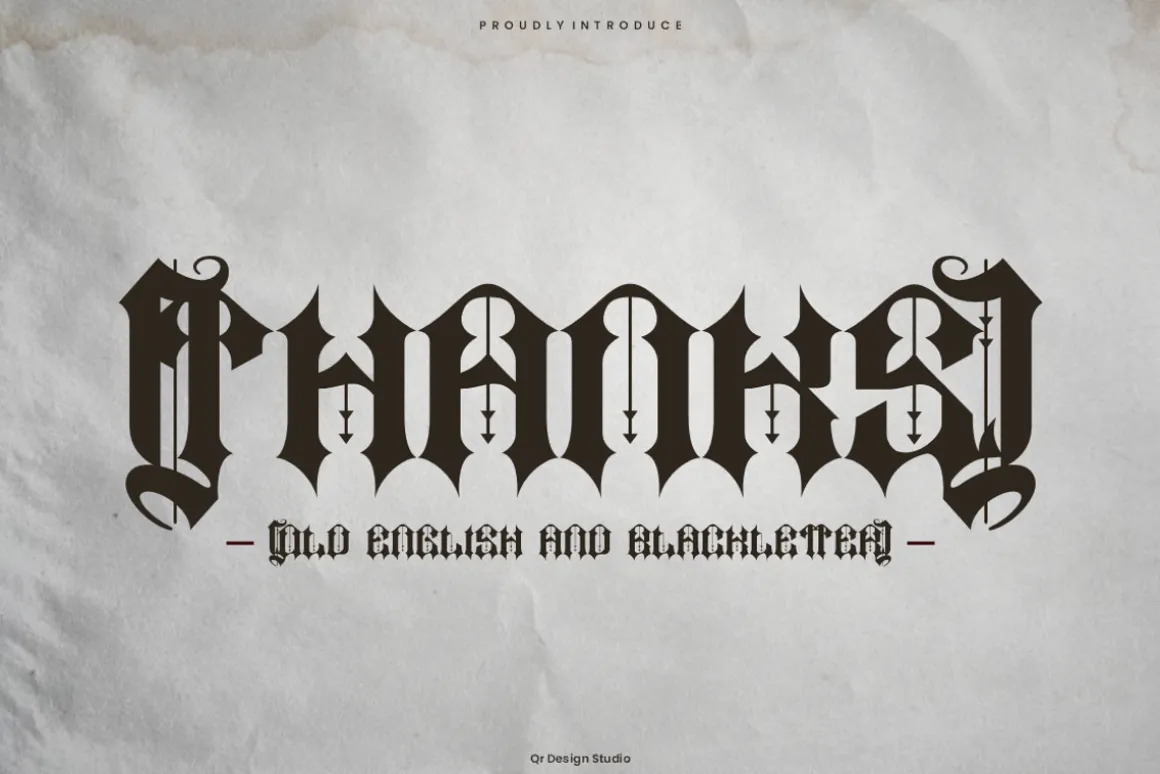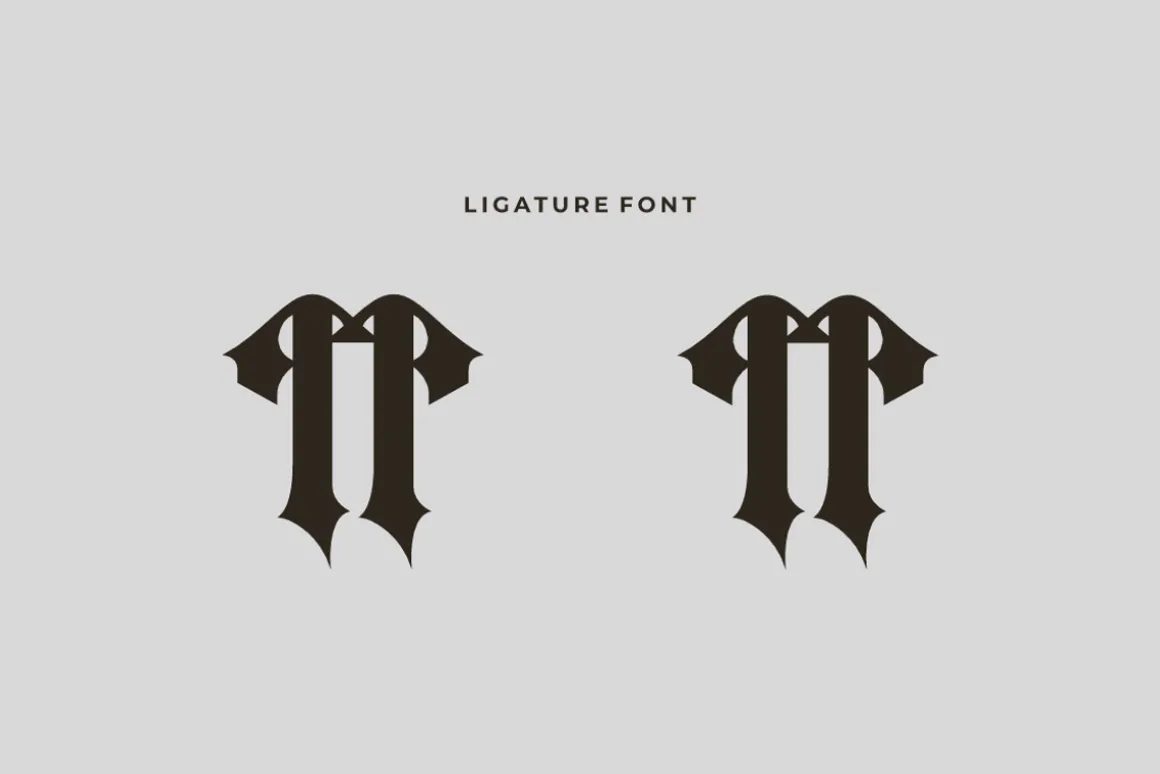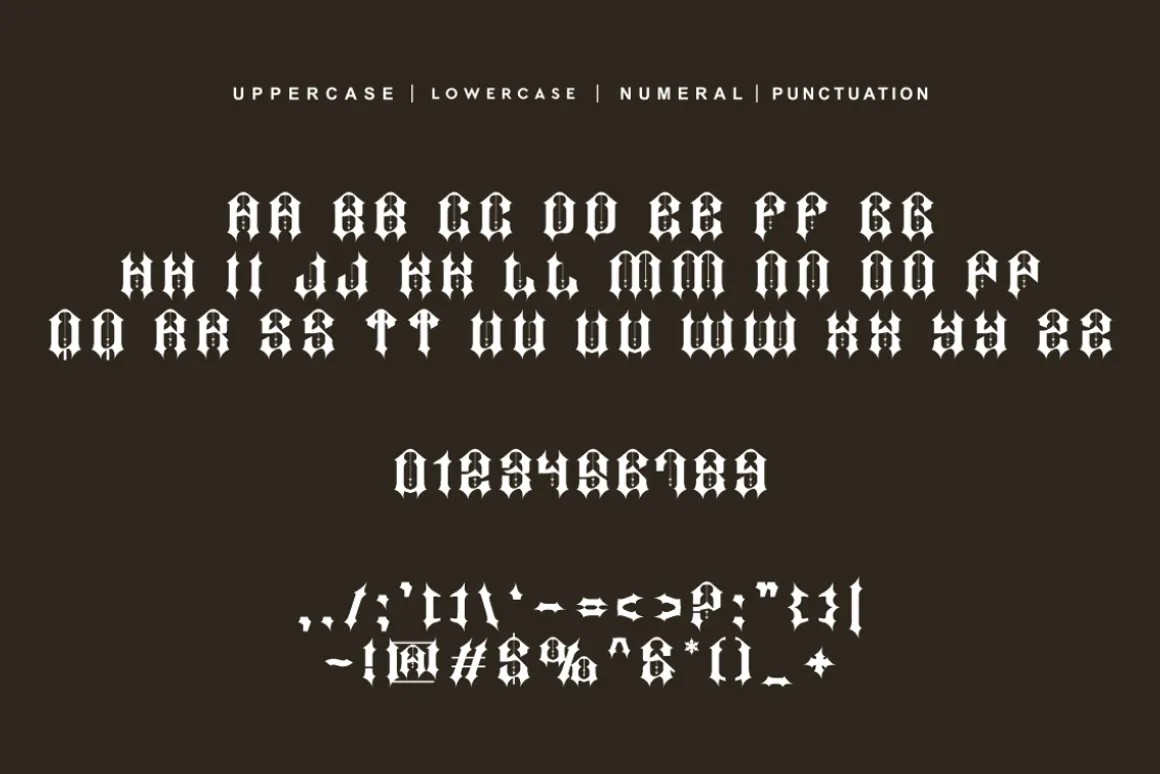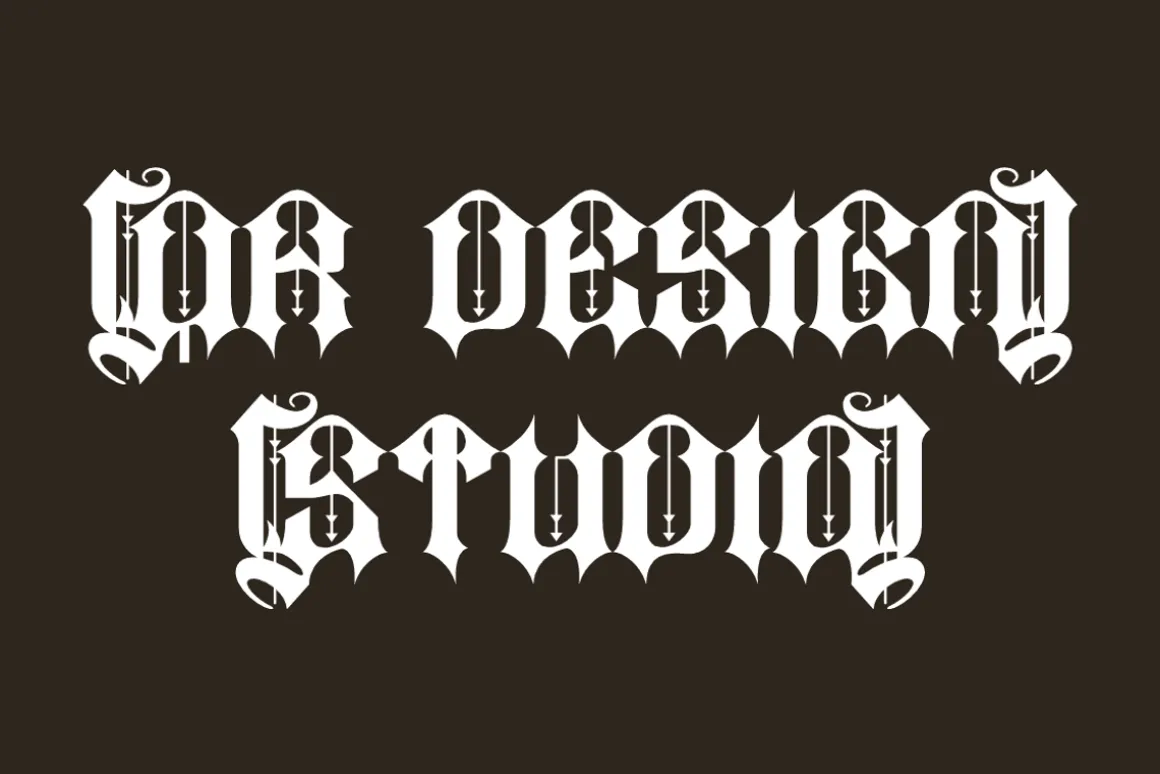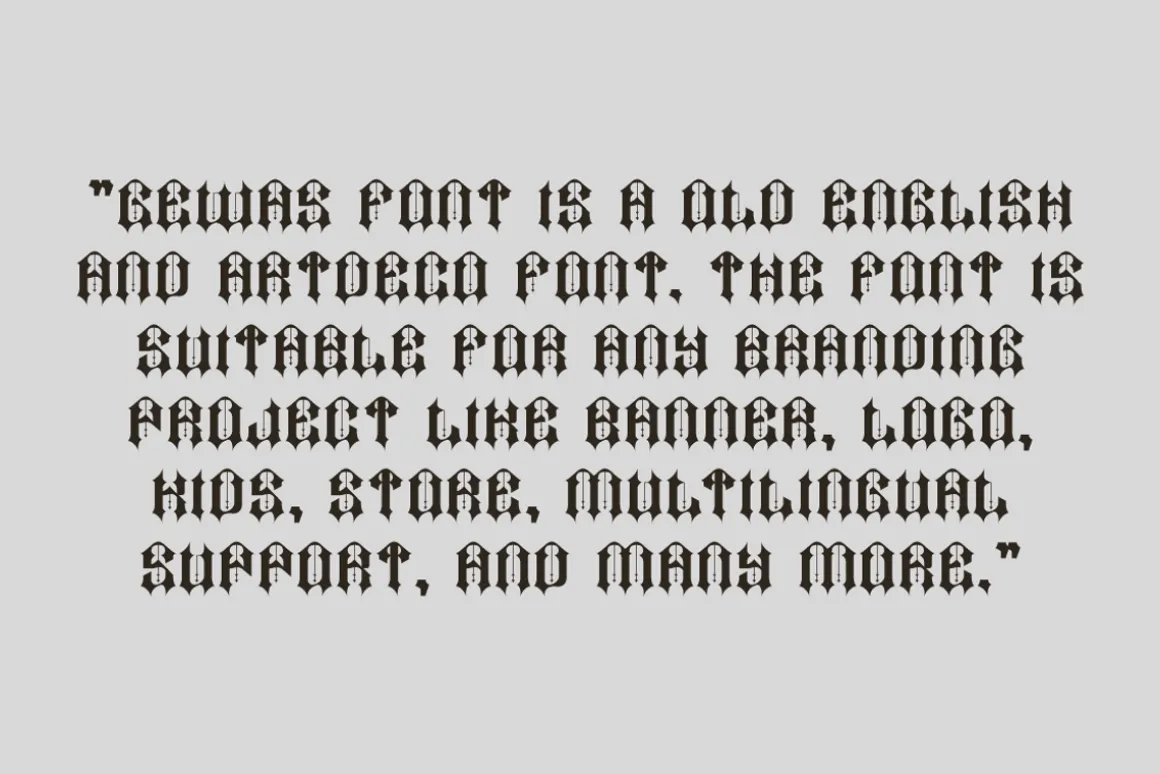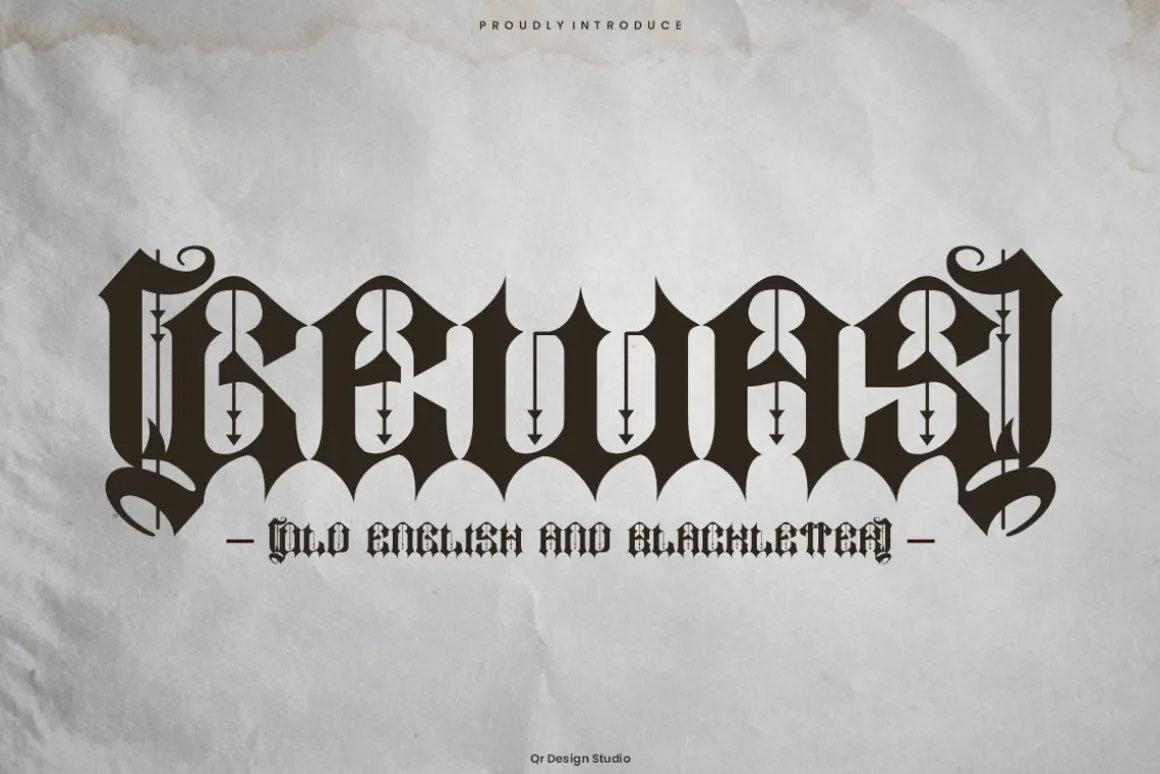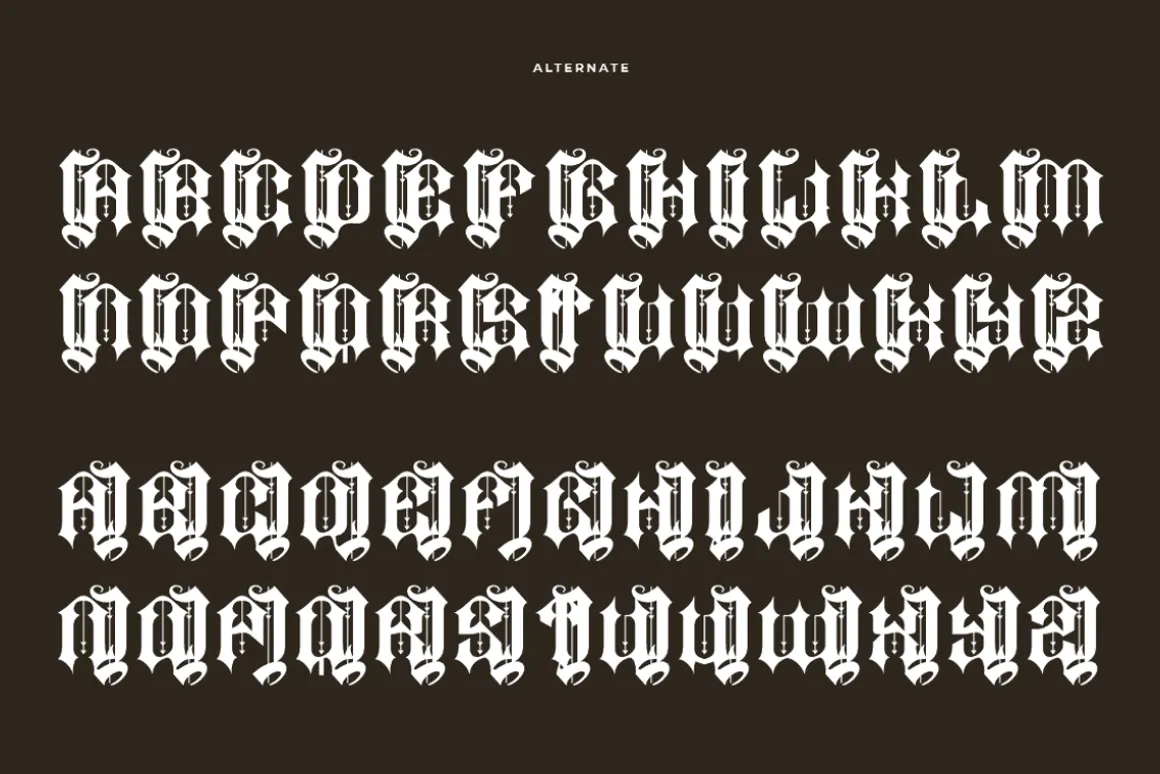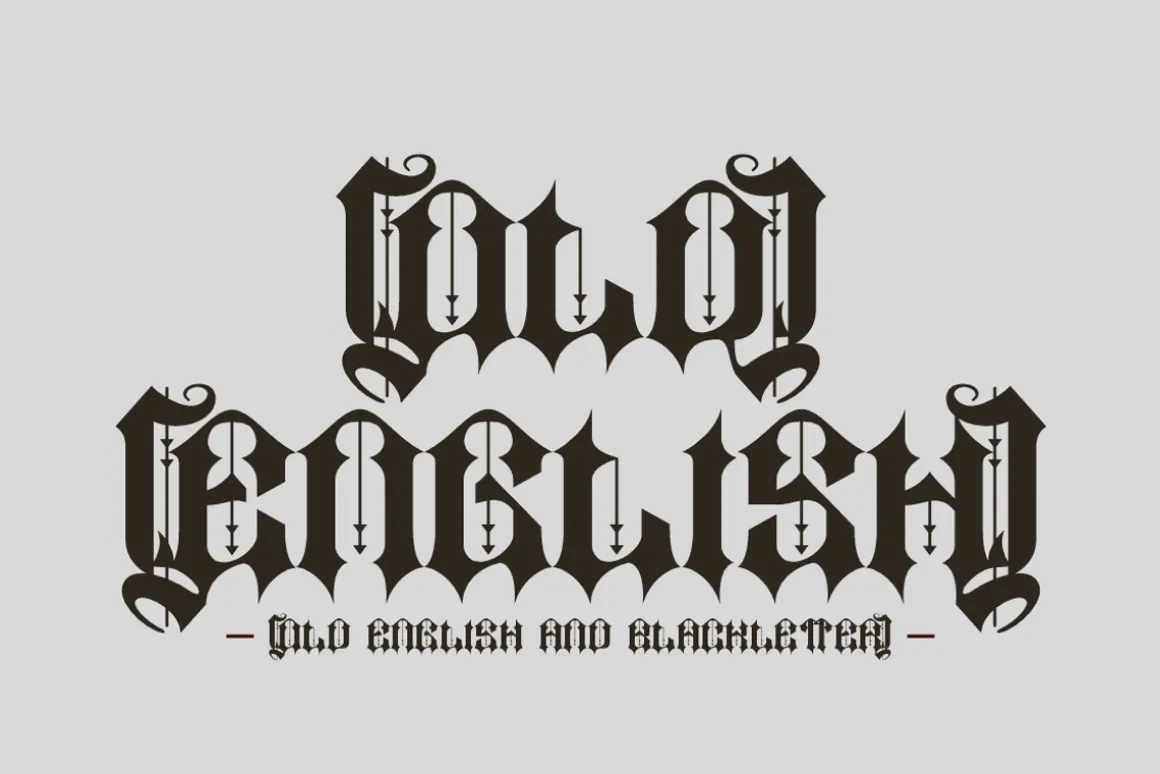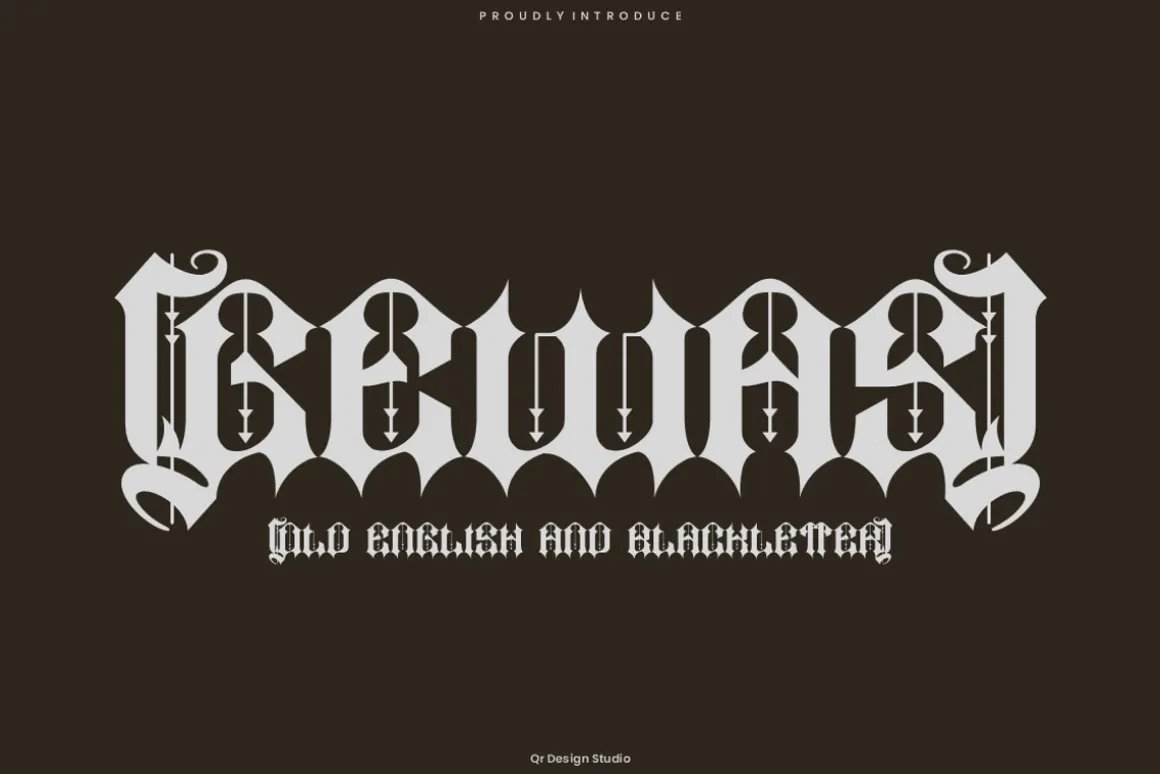
Gewas Font is a blackletter and authentic display font.The font is suitable for any branding project like poster, logo, tattoo, and many more.Outstanding in a wide range of contexts.